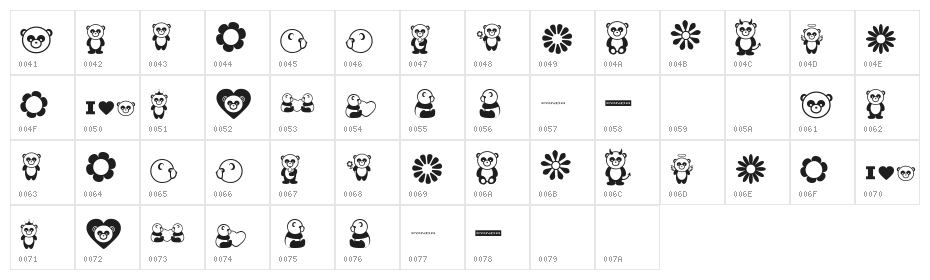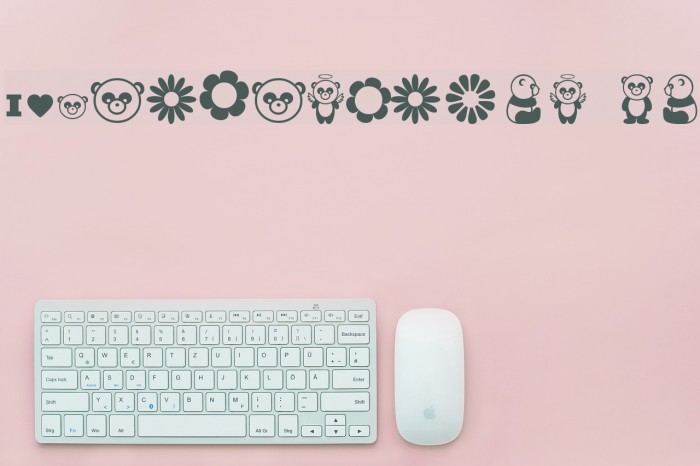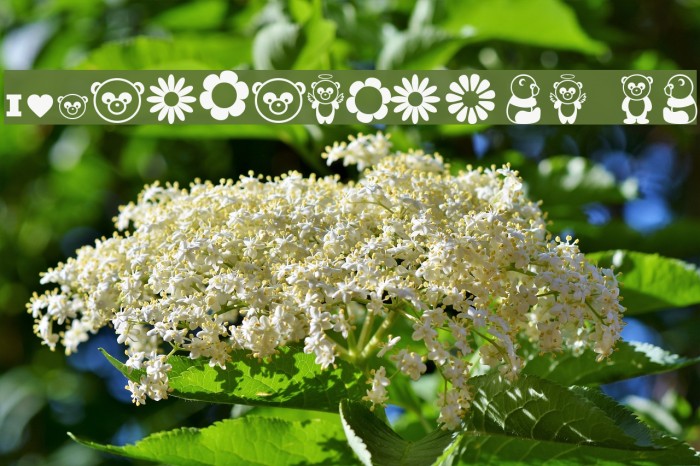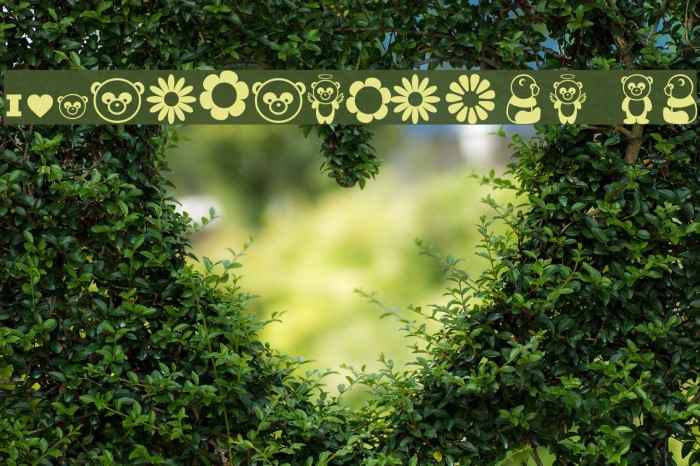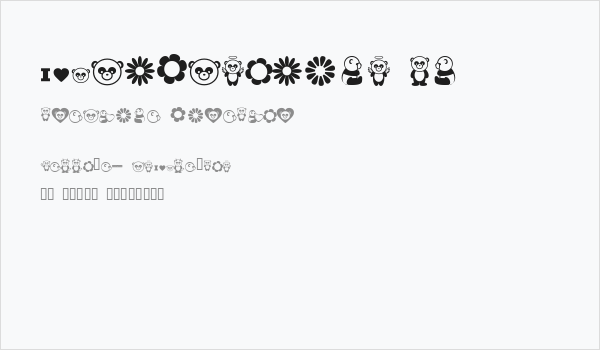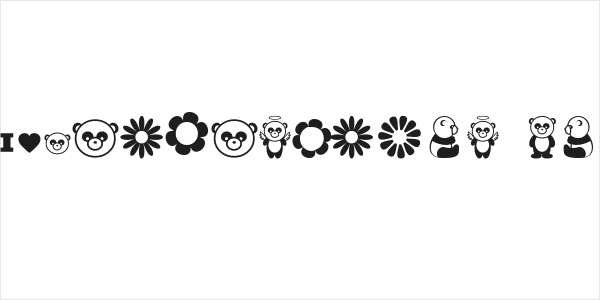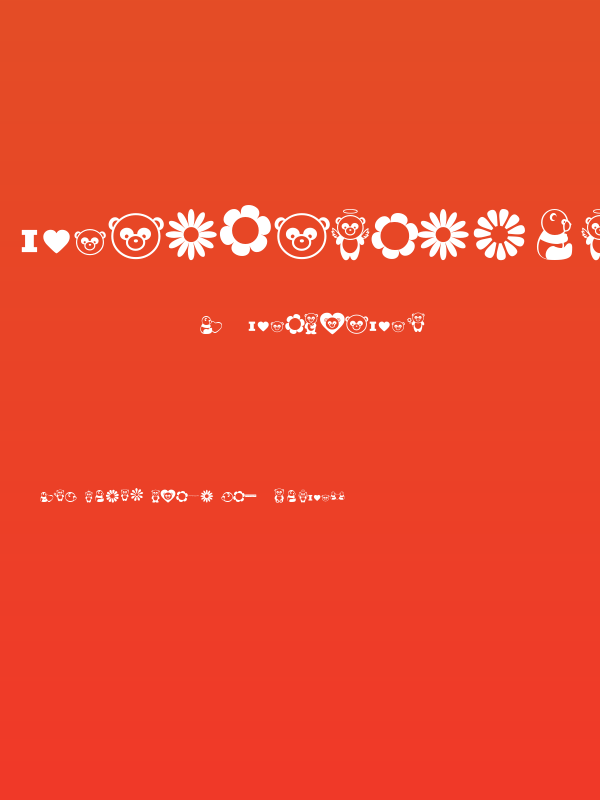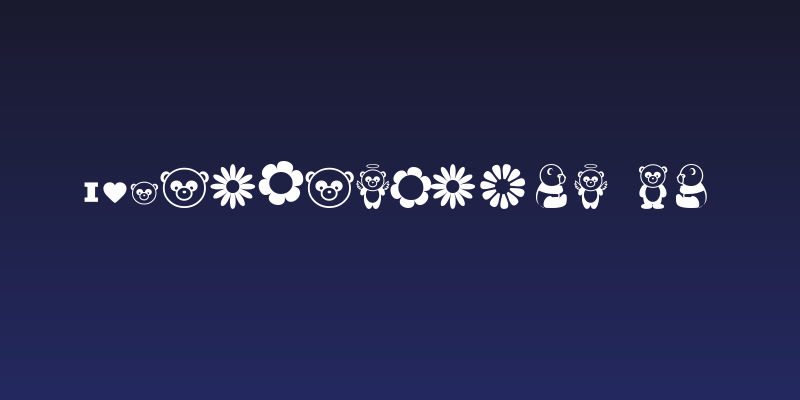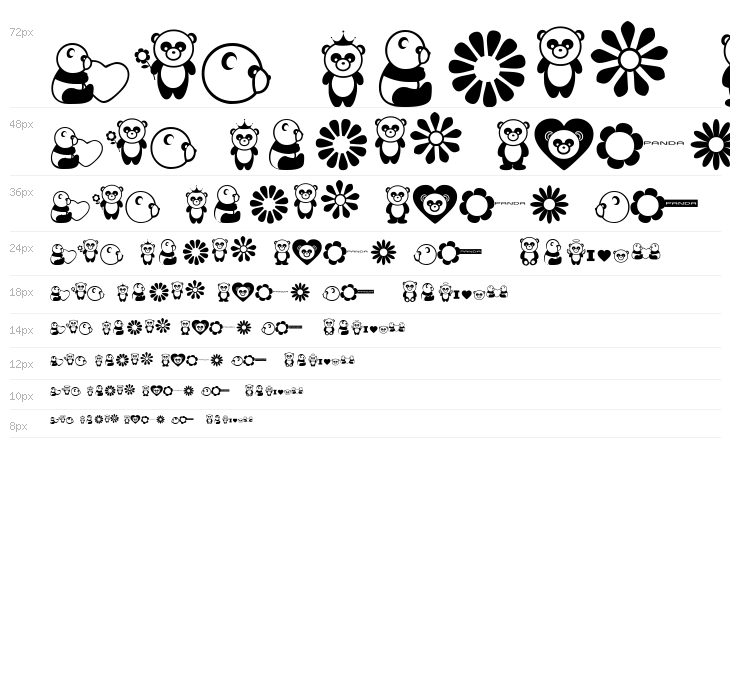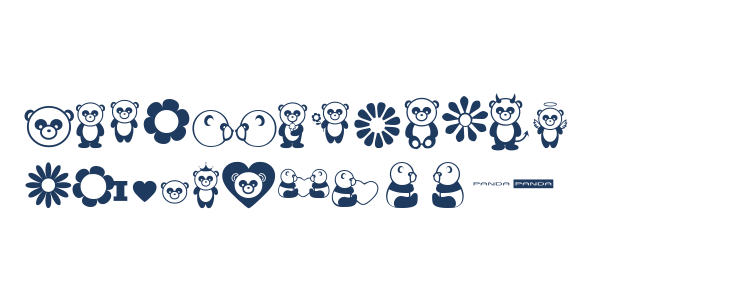
Pandamonium BV Font
Pandamonium BV Description
This is a decorative font featuring playful panda-themed illustrations. Each character is represented by a unique panda or related symbol, such as flowers, hearts, and other whimsical elements. The design is bold and cartoonish, with a consistent black and white color scheme that emphasizes the playful nature of the font. The characters are evenly spaced and maintain a uniform size, making them visually cohesive. This font is ideal for projects that require a fun and engaging aesthetic, appealing to both children and adults who appreciate cute and quirky designs.
| Use Case | Logos, Headlines, Decorative elements |
| Proposed Projects | Ideal for children's books, playful branding, greeting cards, and themed party invitations. |